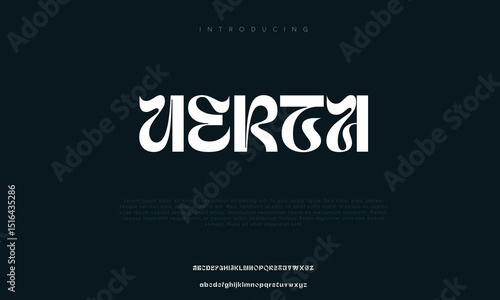
Creative font. Modern abstract digital tech font. Logo creative font, type, technology, movie, digital, music, movie. Fonts and illustration in vector format.